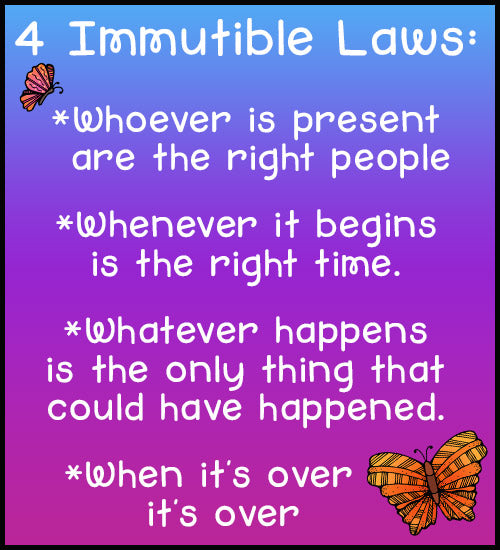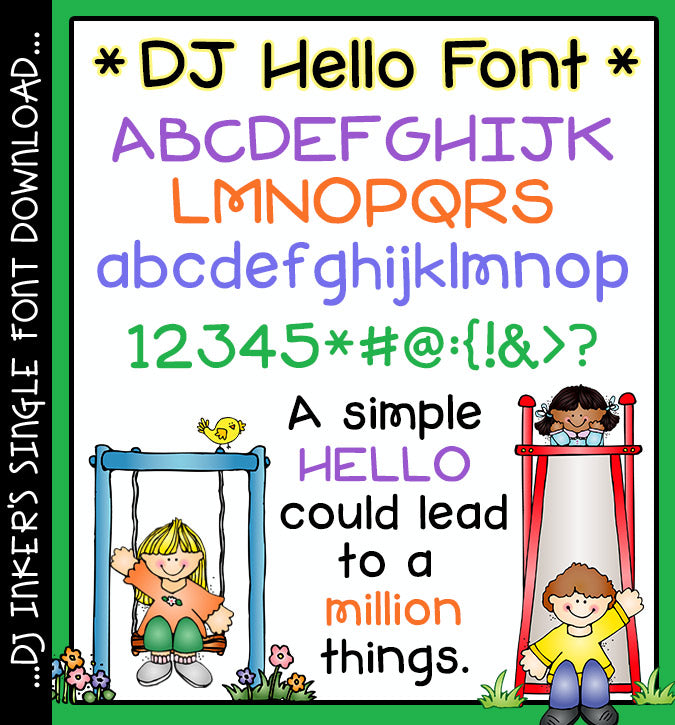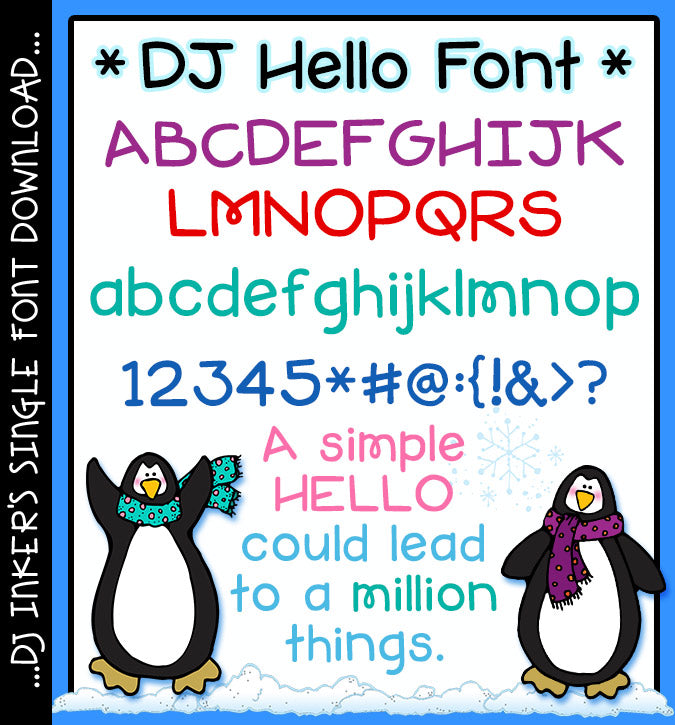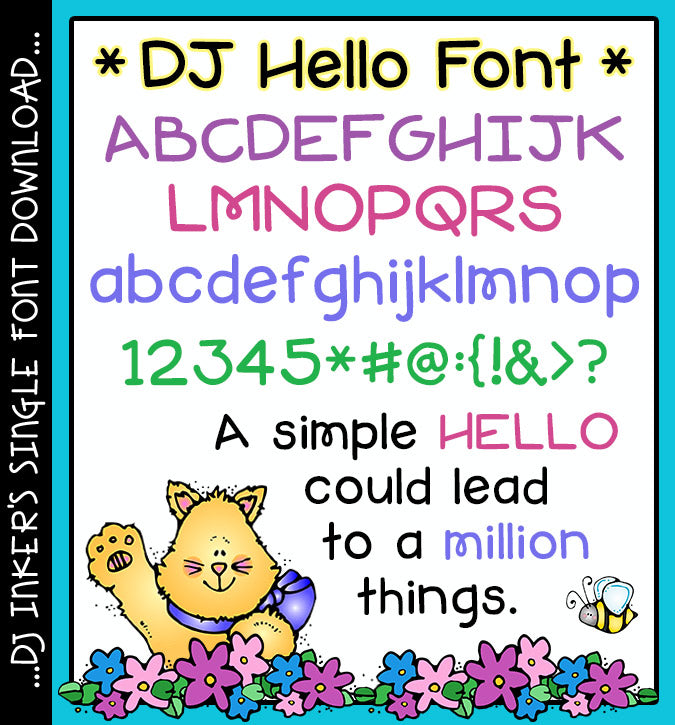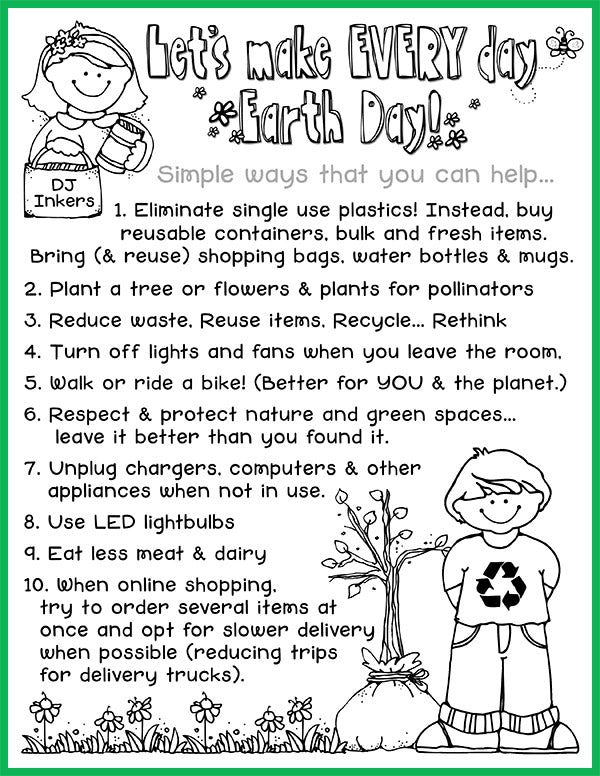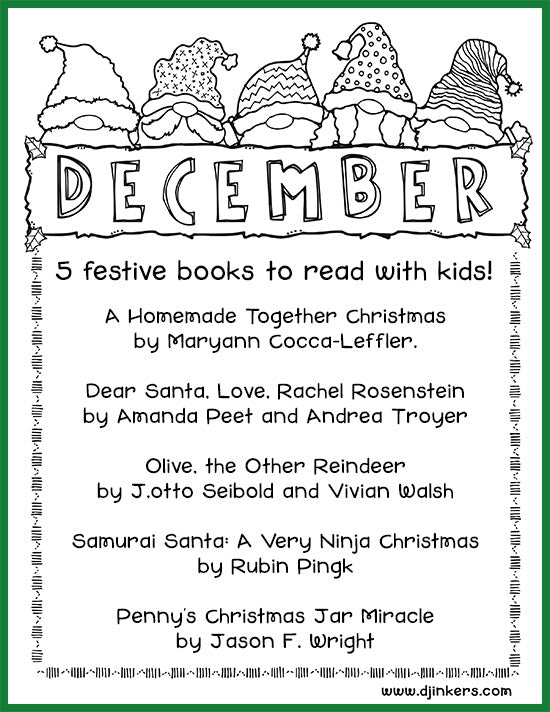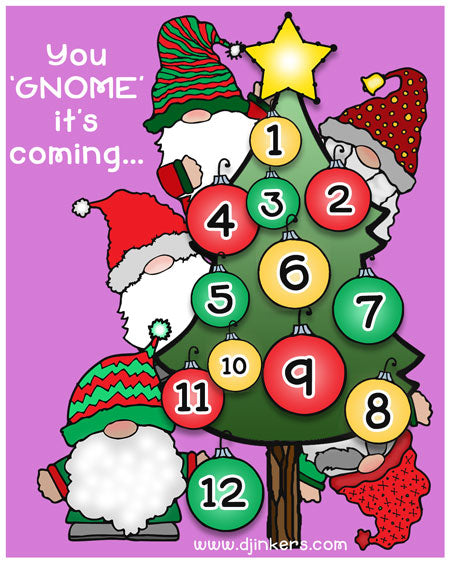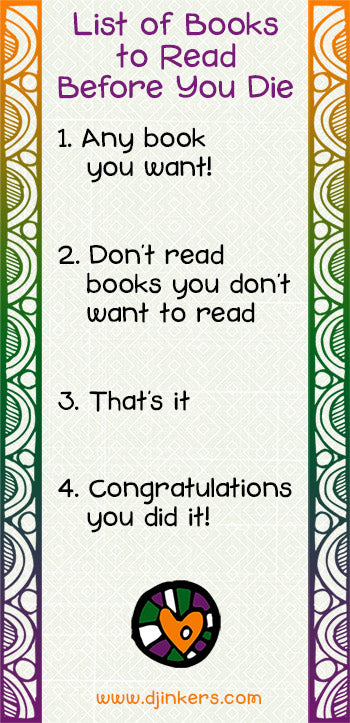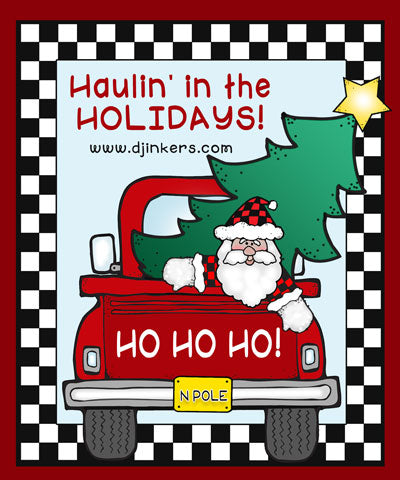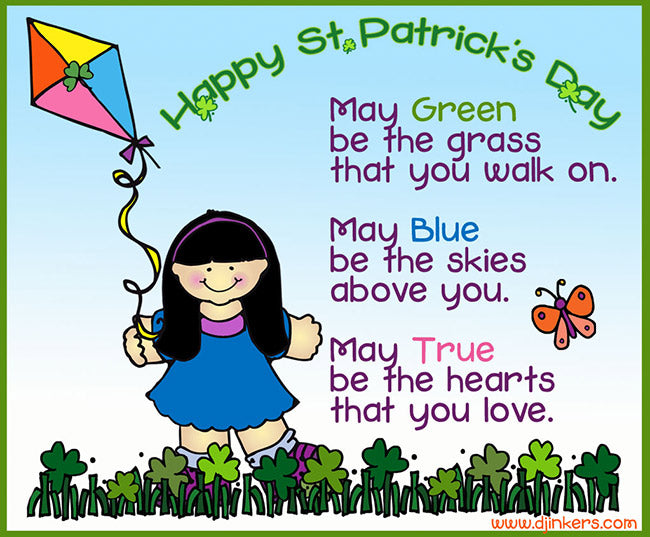
Say Hello to a cute hand-written font with simple, basic lettering by DJ Inkers
DJ Hello Font Download
Say Hello to a cute hand-written font with simple, basic lettering by DJ Inkers
DJ Hello Font Download
Say "Hello" to another fun and whimsical font by DJ Inkers! This hand-drawn lettering is bold and easy to read, making it extremely versatile for your projects at home, school or work. Perfect for letters, lists, worksheets, fliers, gifting, crafting and more.